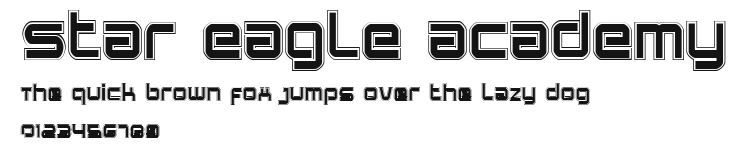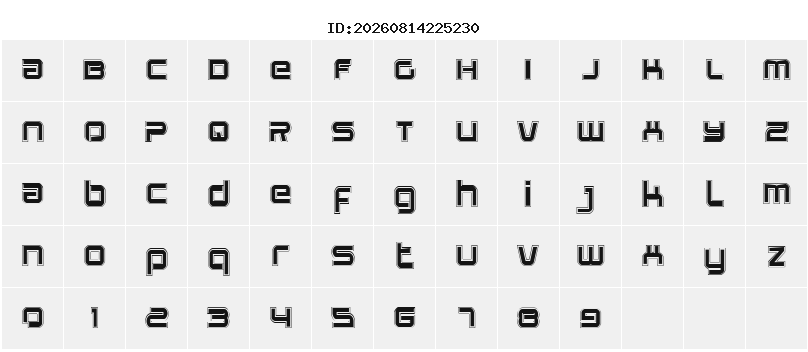
Star Eagle Academy Preview
• Font Name: Star Eagle Academy
• Full Font Name: Star Eagle Academy Regular
• PostScript Name: StarEagleAcademy
About Star Eagle Academy.ttf
Star Eagle Academy.ttf is a modern, elegant sans-serif font designed for ultimate readability and visual harmony. Perfect for branding, headlines, web design, and print materials.